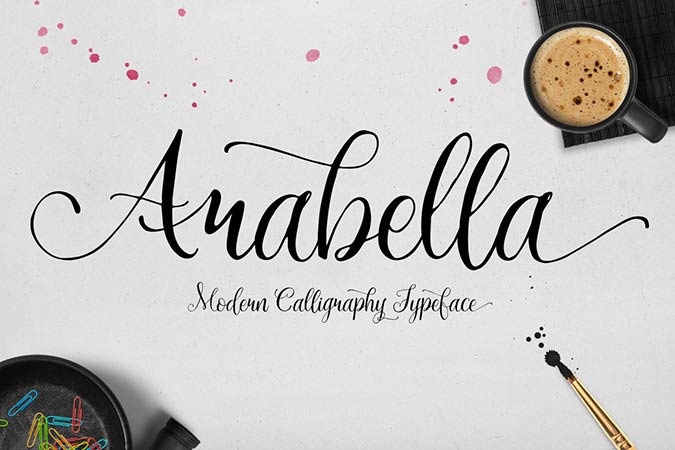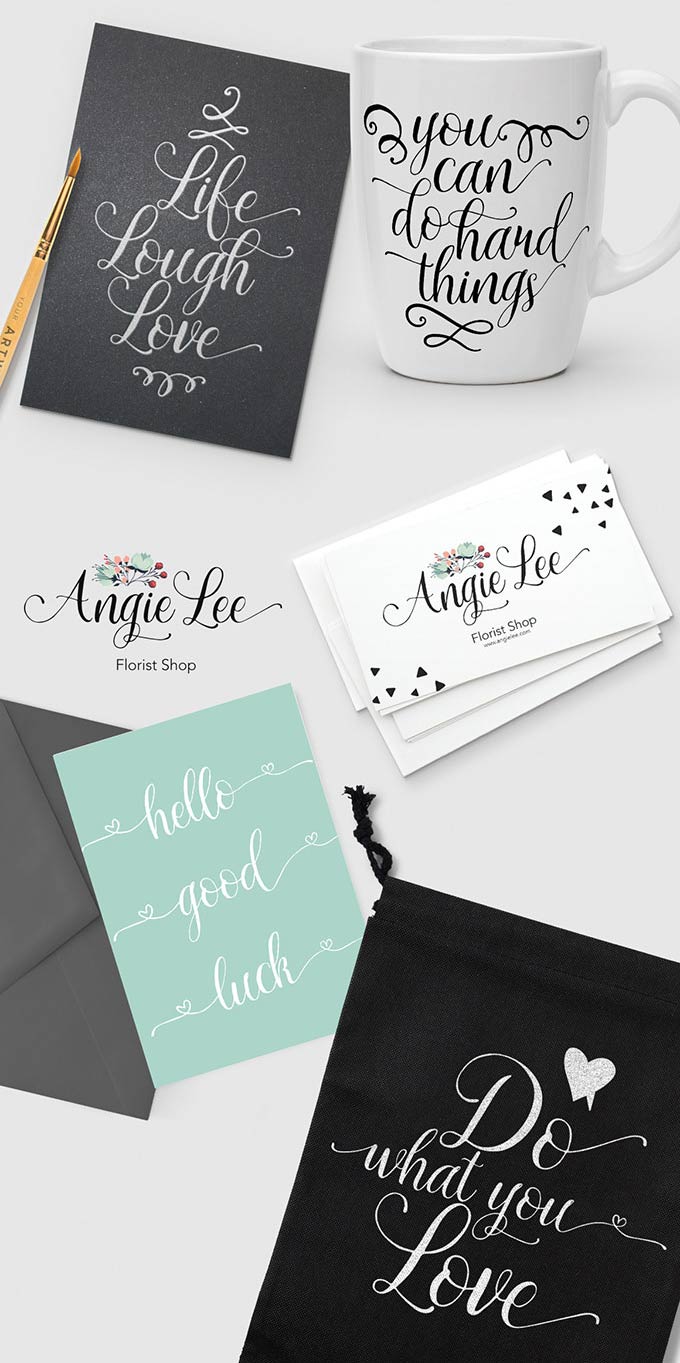
Arabella is a beautifully handcrafted script font that is free for everyone to download. It has a very lovely strokes and elaborated curves that makes this font suitable for logotypes. Besides that you can also apply this font to print and digital designs for wedding cards, coffee shop menus, t-shirts, love letters and more!
- Category: Script